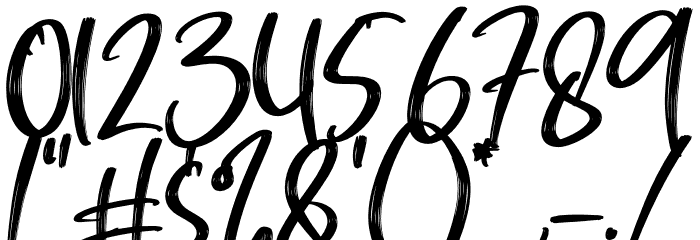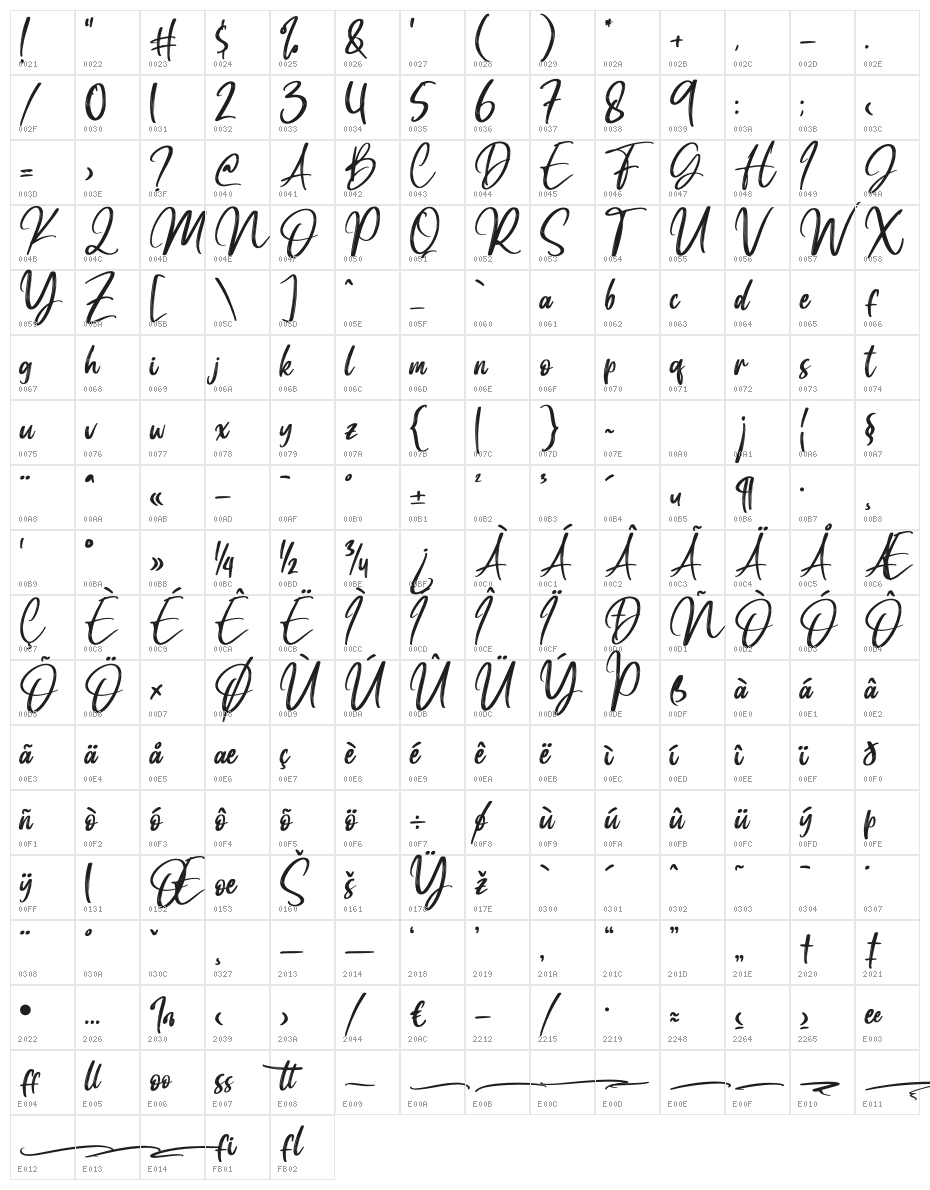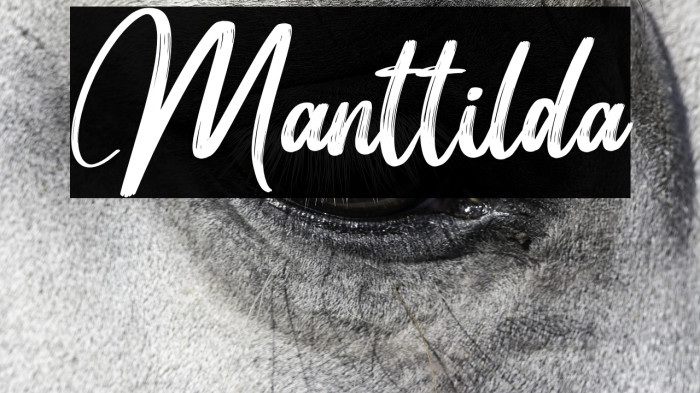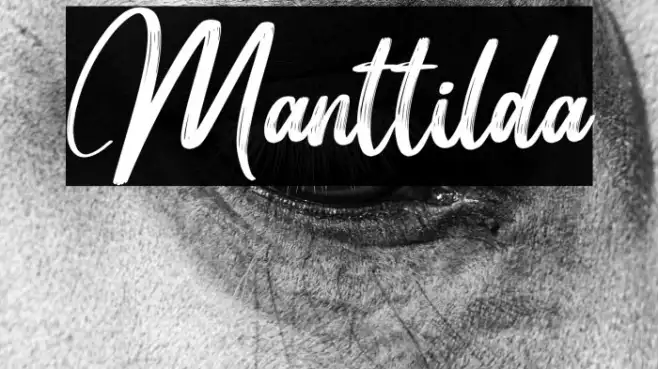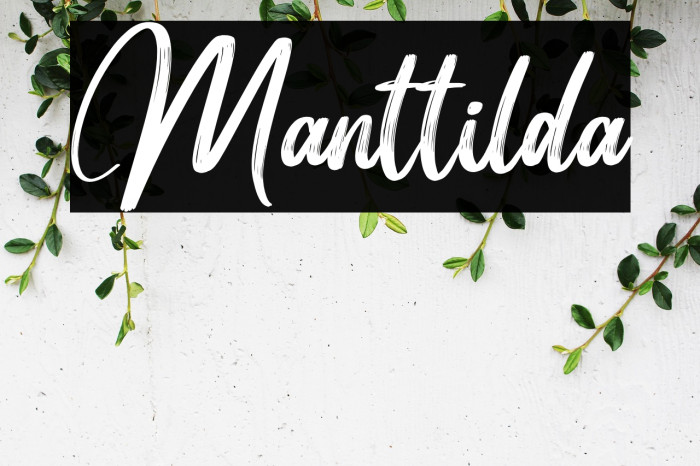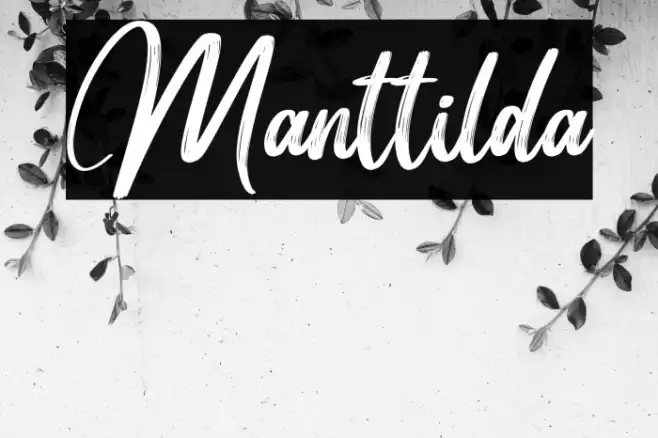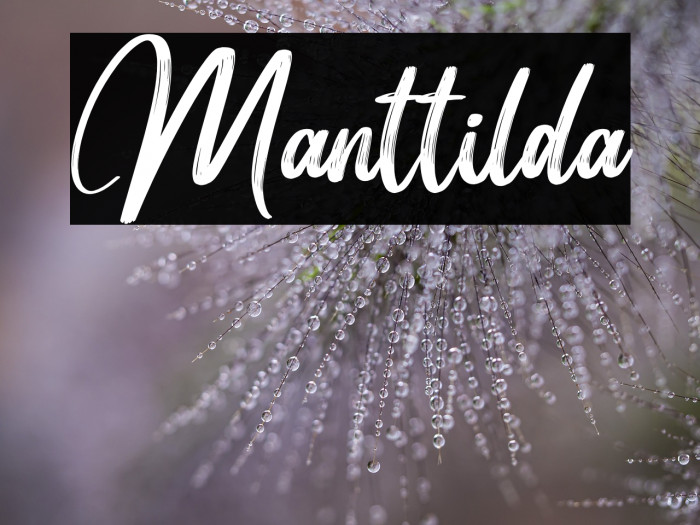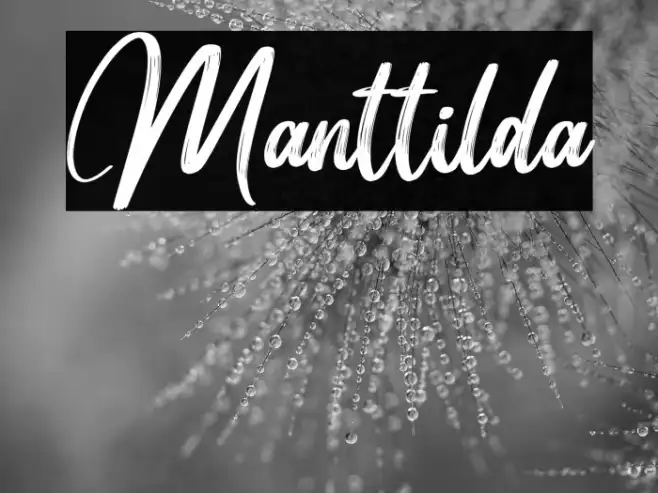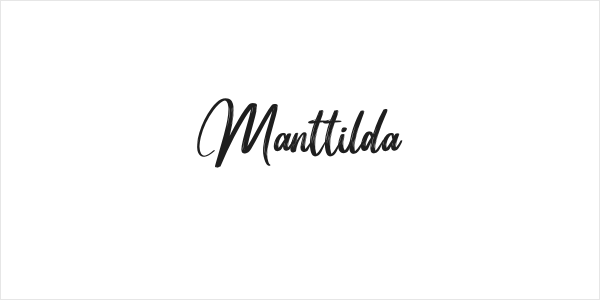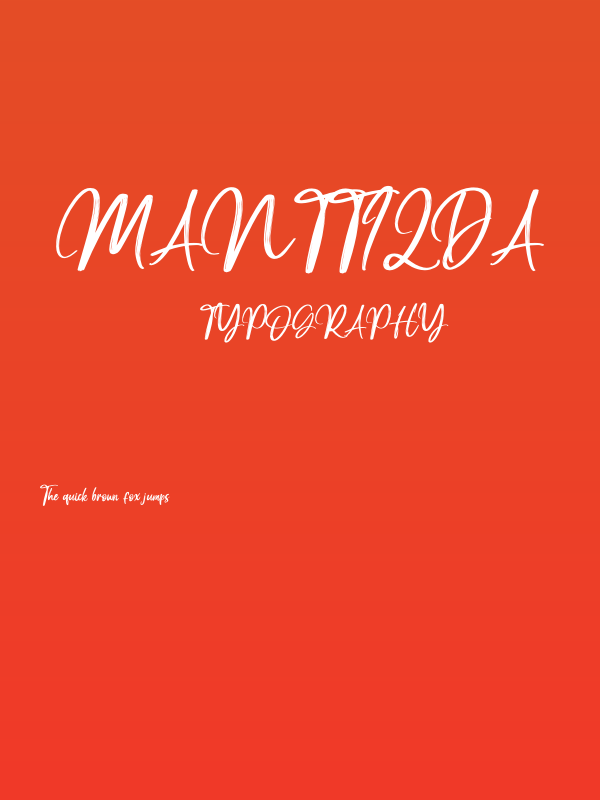
Manttilda Font
Manttilda Description
This font features a dynamic and expressive script style, characterized by its fluid, handwritten appearance. The uppercase letters are elegantly connected, with a slight slant that adds a sense of motion and energy. The lowercase letters maintain a consistent flow, with some letters featuring unique loops and swashes that enhance its artistic flair. The numerals are bold and maintain the same handwritten quality, ensuring consistency across all characters. Special characters are designed with the same attention to detail, making them seamlessly integrate with the rest of the font. Overall, this font exudes a modern and creative vibe, perfect for projects that require a personal touch.